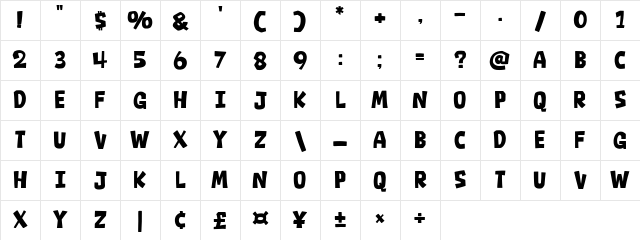
Besty Land Regular Free Font
Besty Land Regular
Foundry: Bolyfat
Designer: Khurasan
Design Context for Besty Land
Besty Land is a composed and adaptable typeface that performs quietly and consistently across a wide range of design contexts.